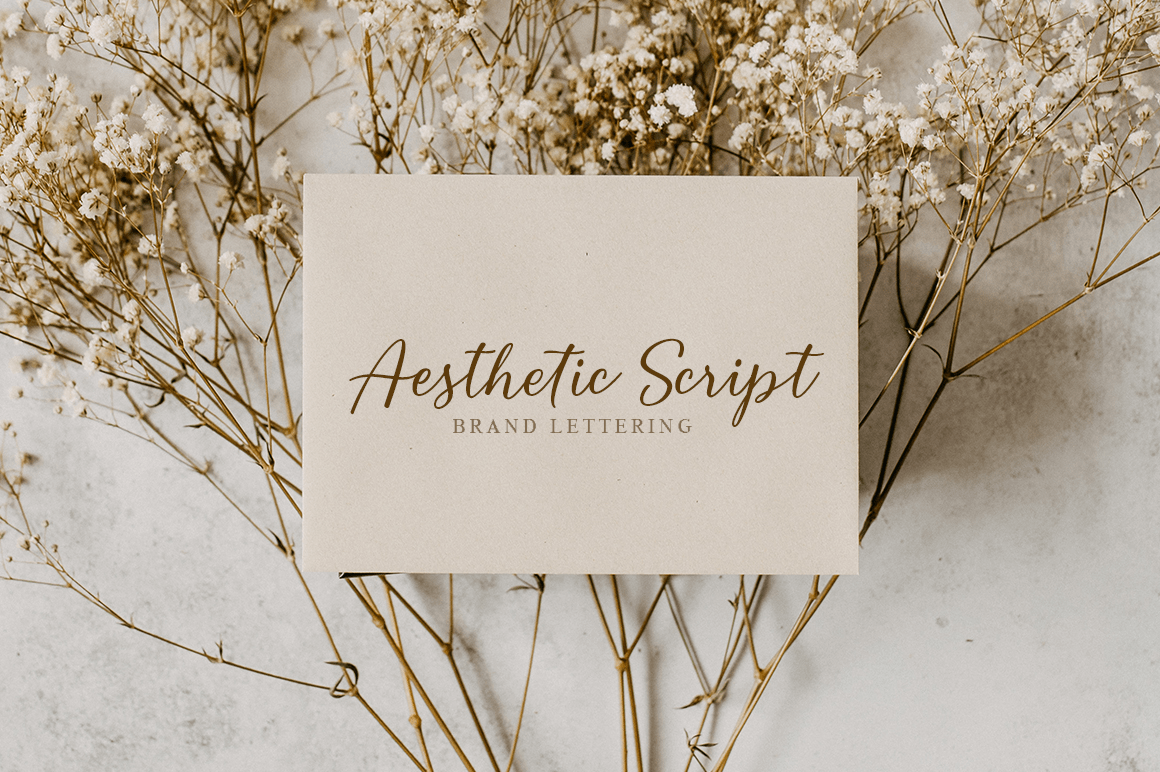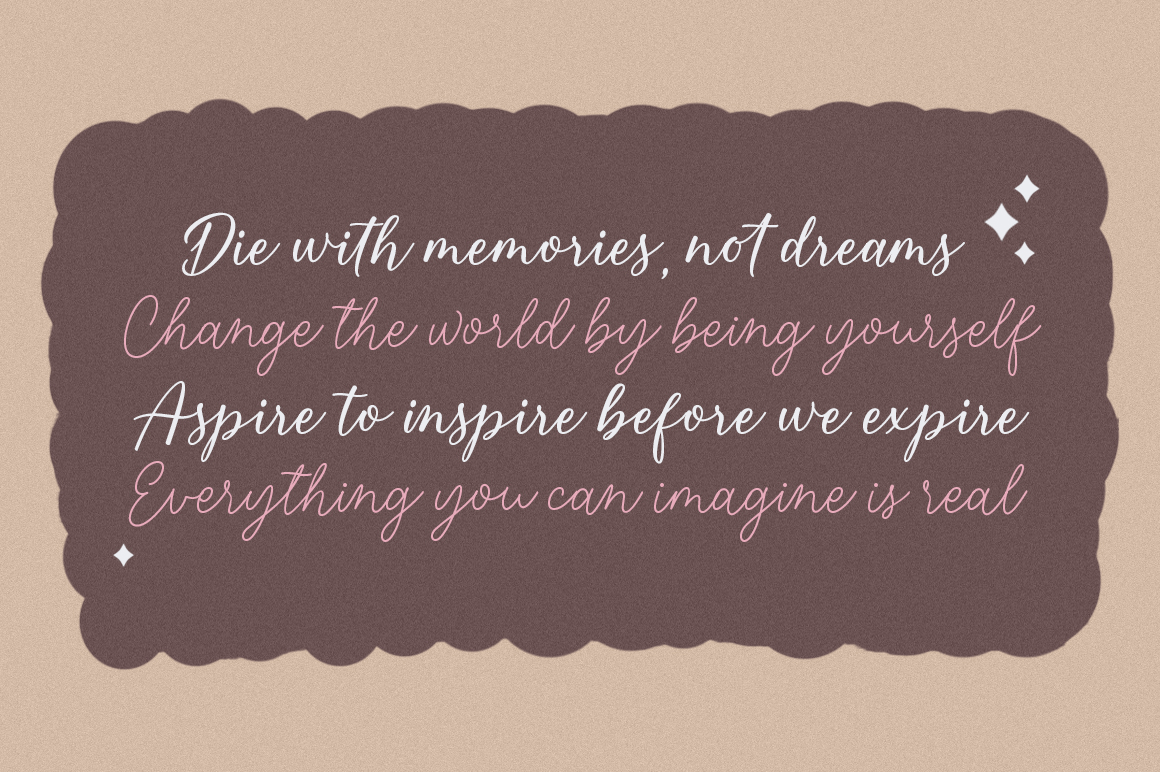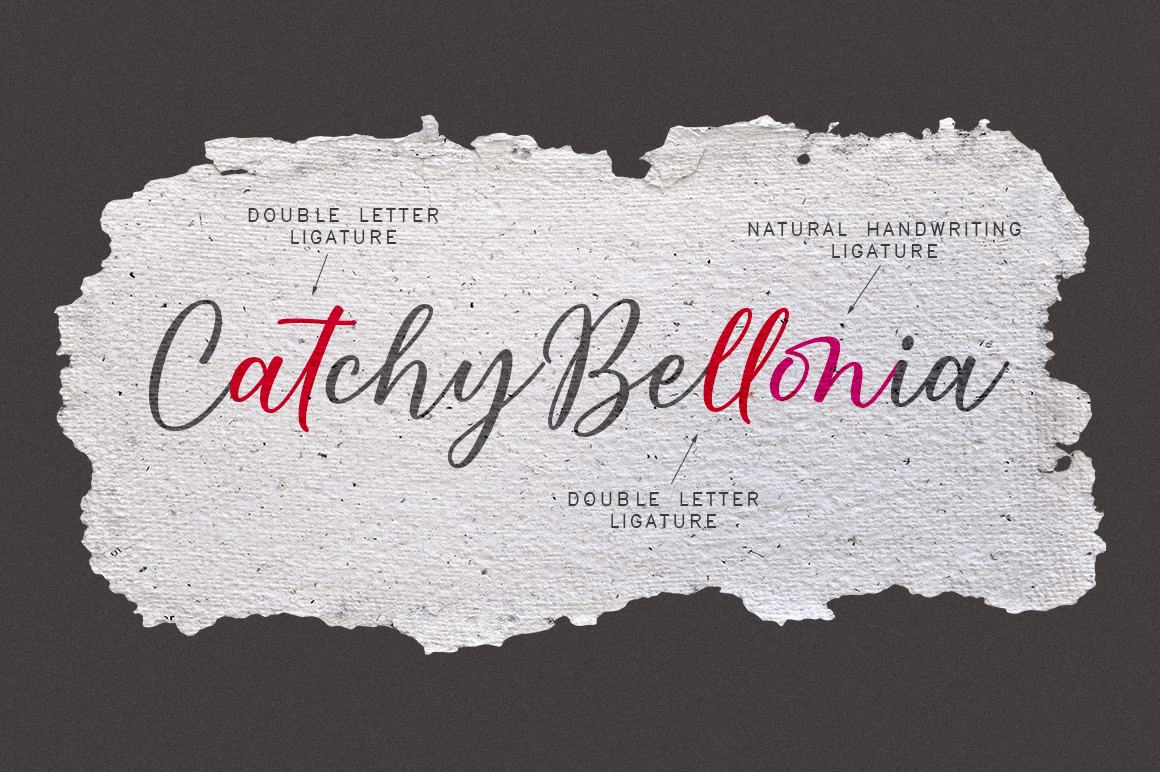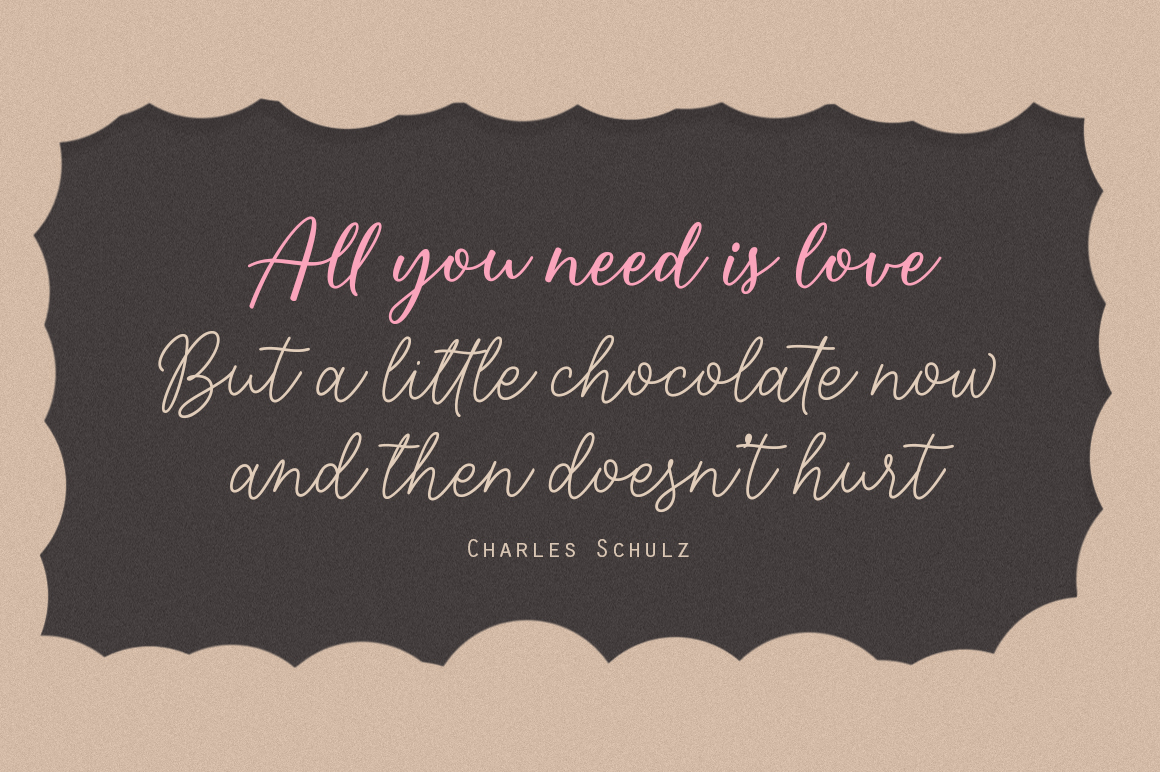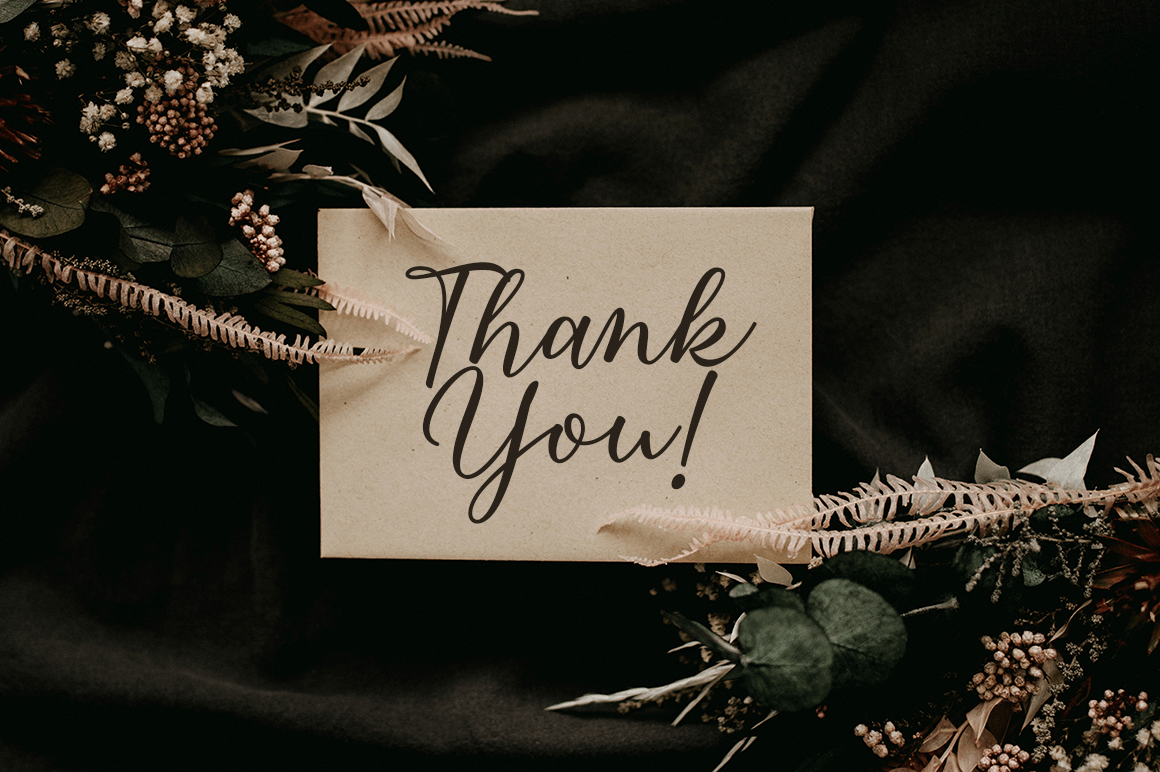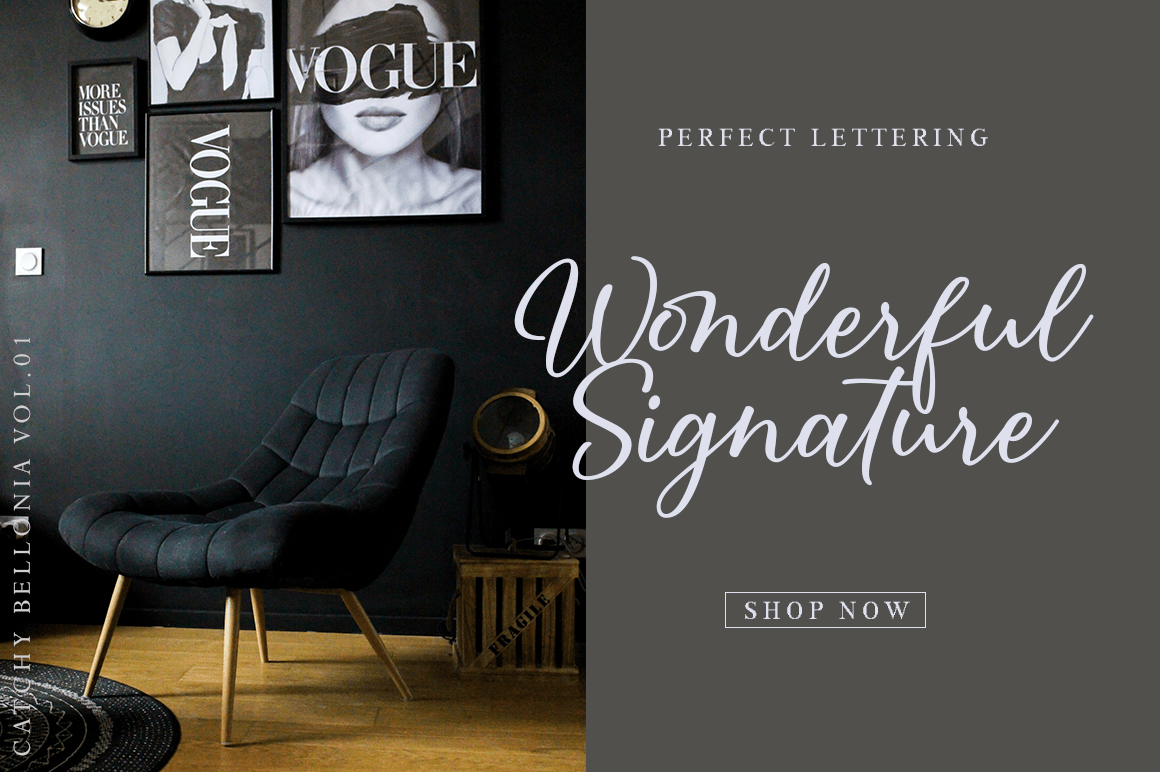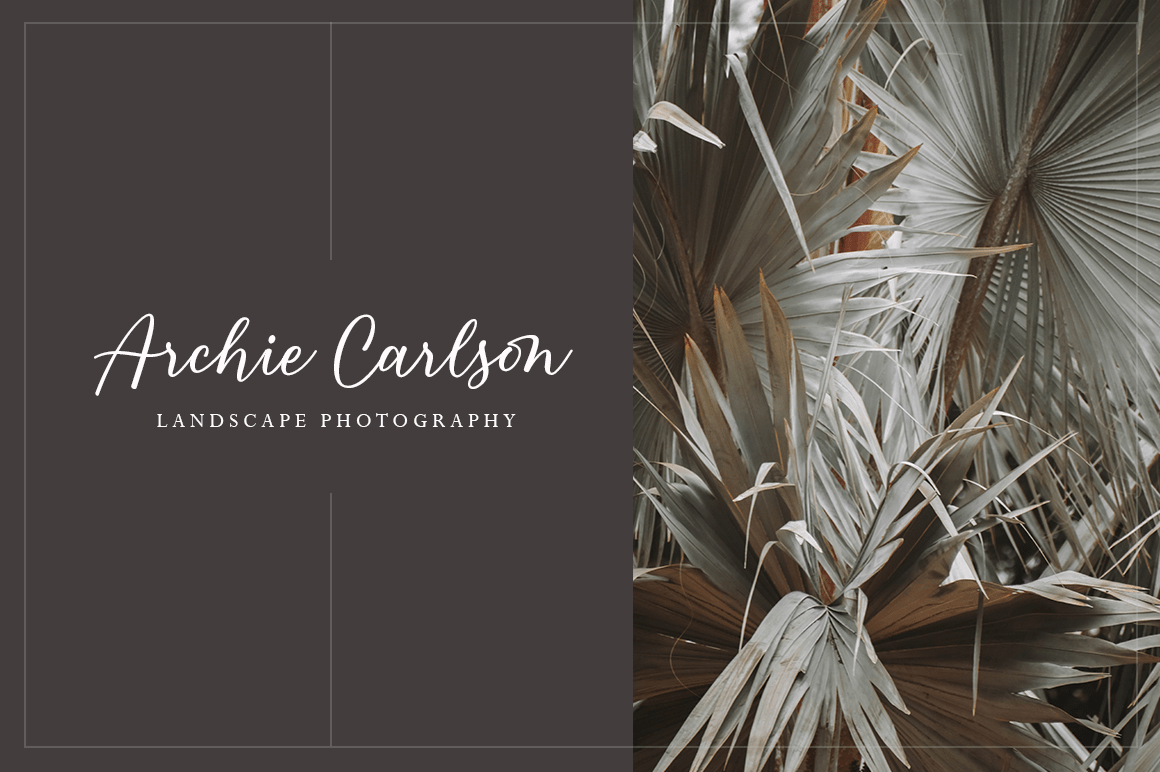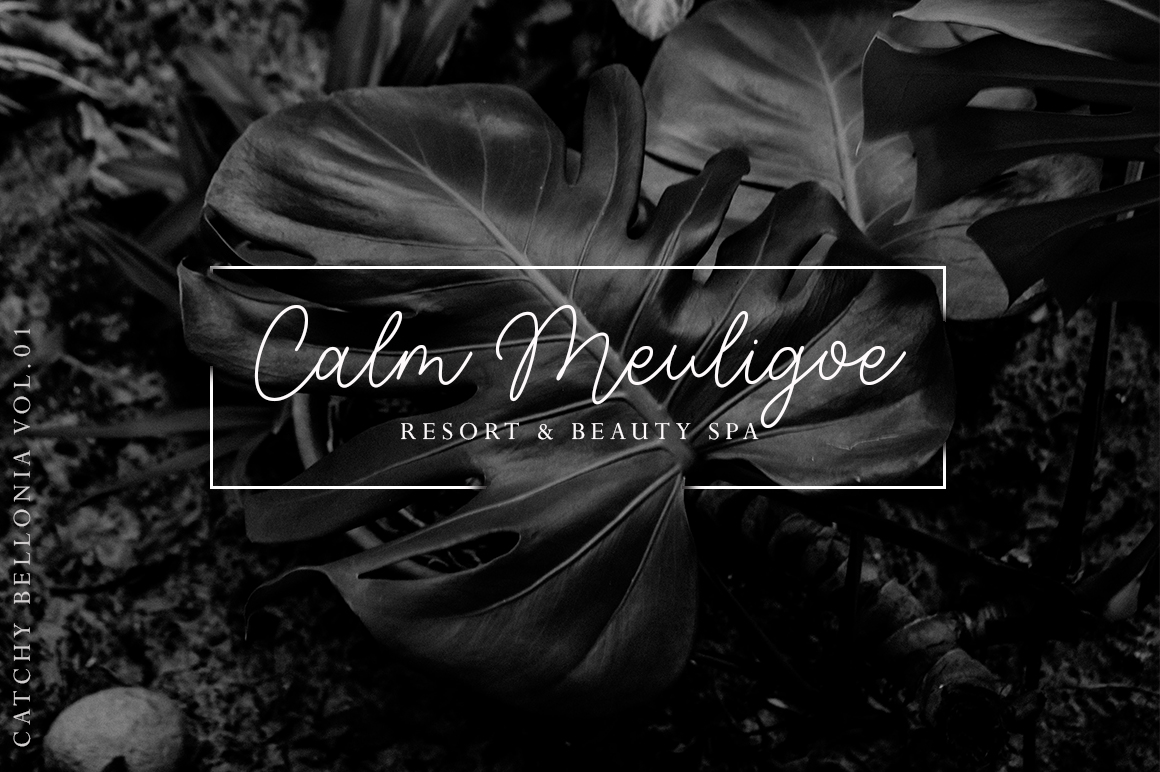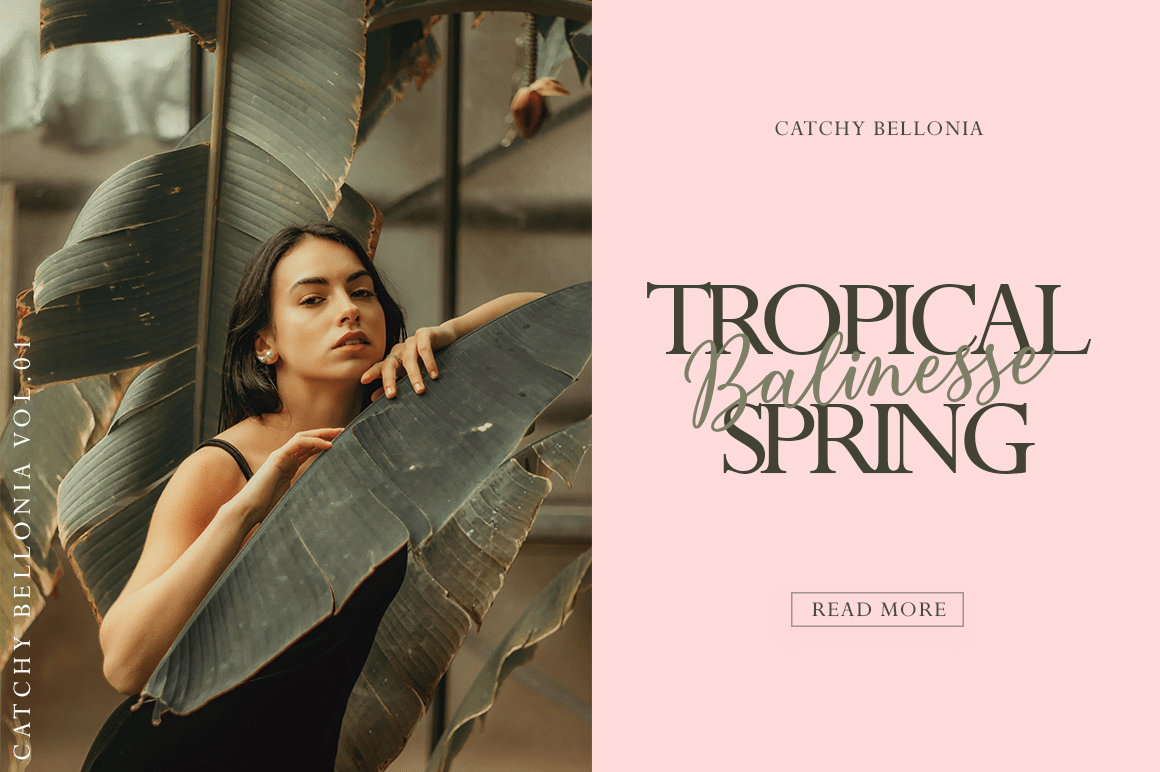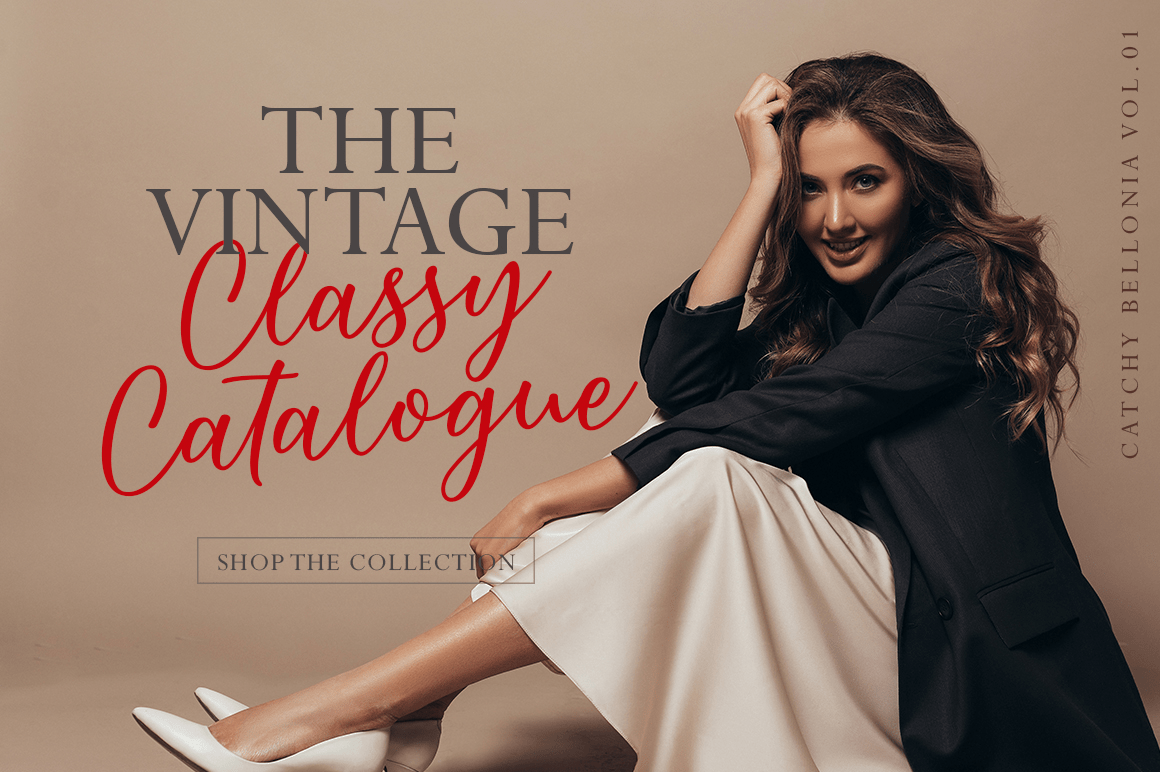
Catchy Bellonia
Font Family by Fargun Studio
Catchy Bellonia is a relaxed and cursive script font. Not too thin and not too thick, balanced and varied, this font was designed to enhance the beauty of your projects. Included Mono-line version.